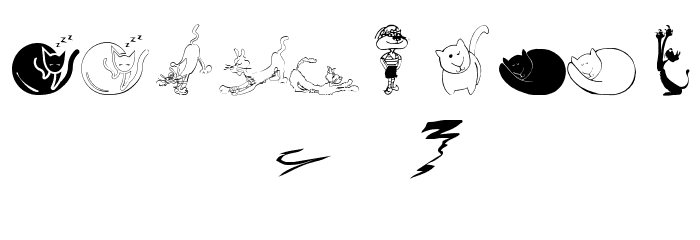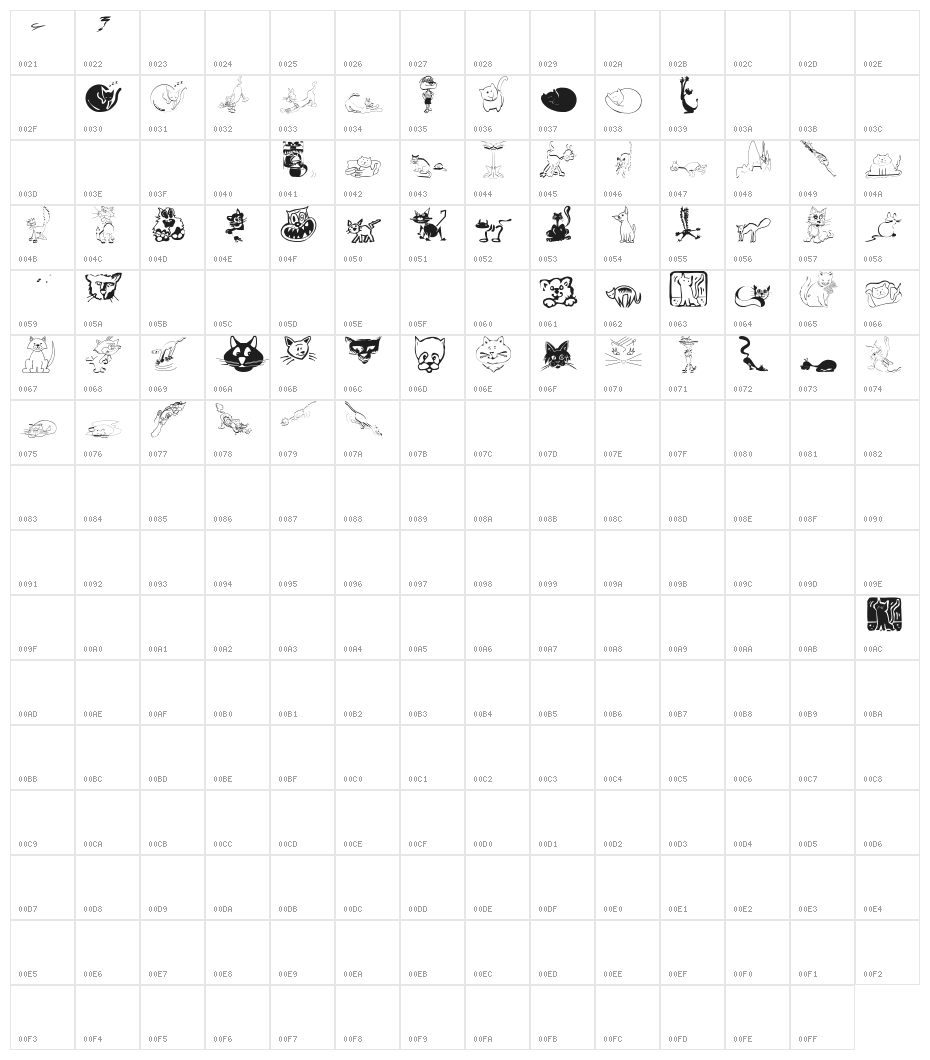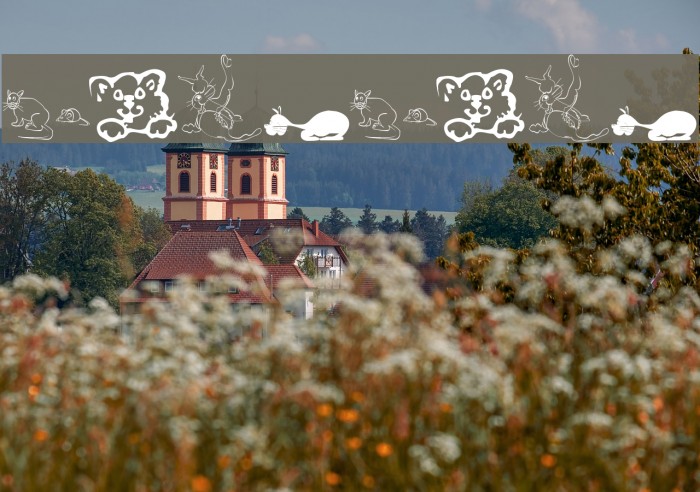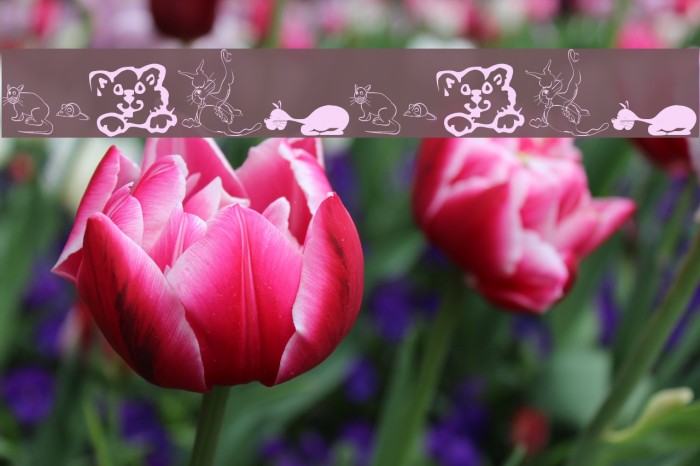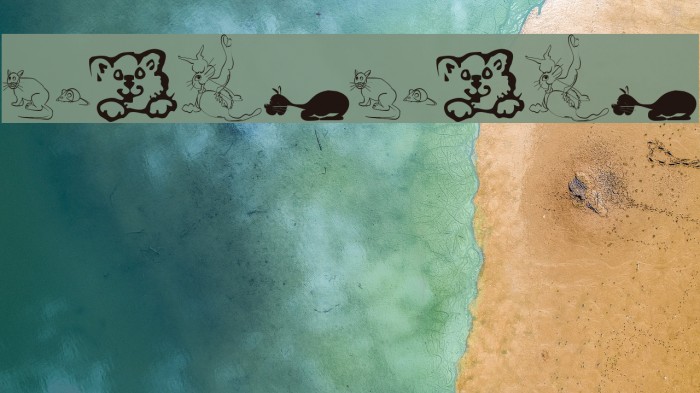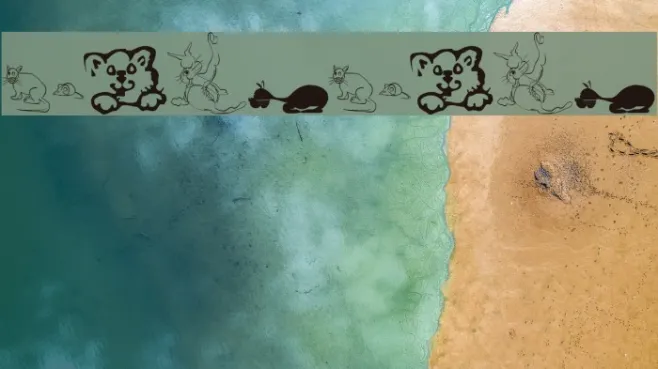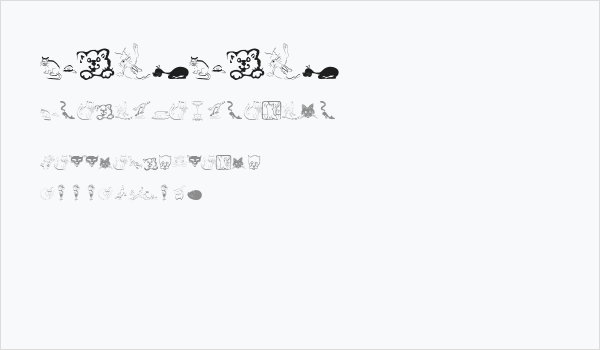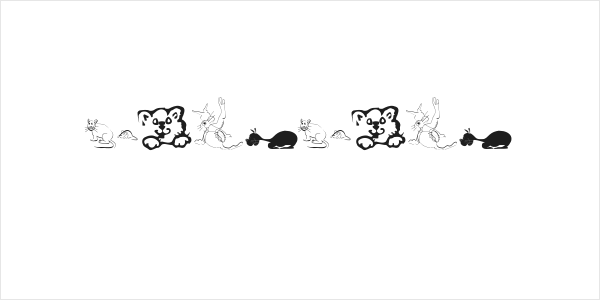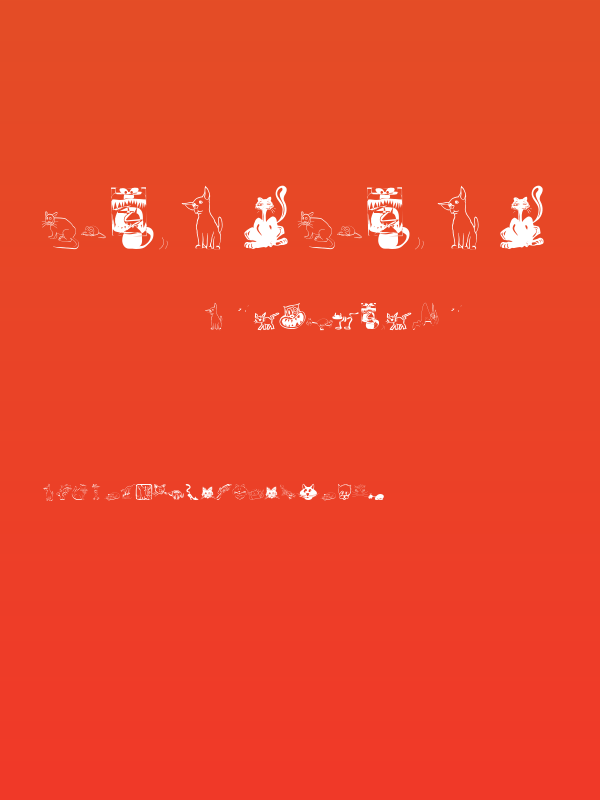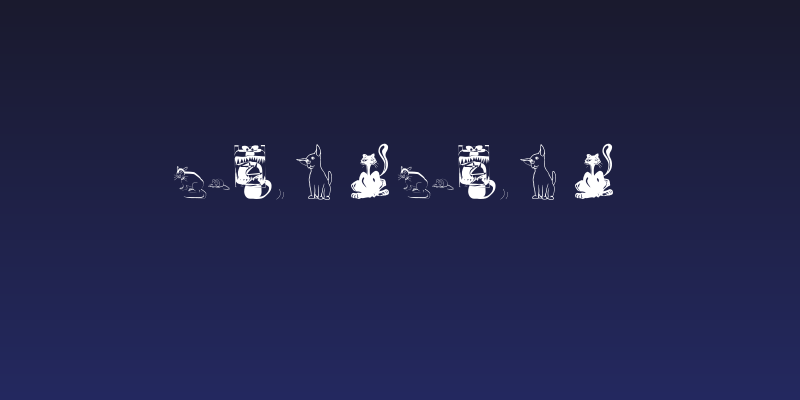
CatsCats Font
CatsCats Description
This is a decorative font featuring a variety of whimsical and artistic cat illustrations. Each character is represented by a unique cat design, ranging from playful and cartoonish to more detailed and artistic depictions. The font captures the diverse personalities and poses of cats, making it visually engaging and charming. The characters are not uniform in style, offering a mix of bold outlines and intricate details, which adds to the overall playful and creative aesthetic. This font is perfect for projects that require a fun and lighthearted touch, especially those related to pets or children.
| Use Case | Logos, Posters, Creative Invitations |
| Proposed Projects | Ideal for children's books, pet-related branding, playful posters, and creative invitations. |